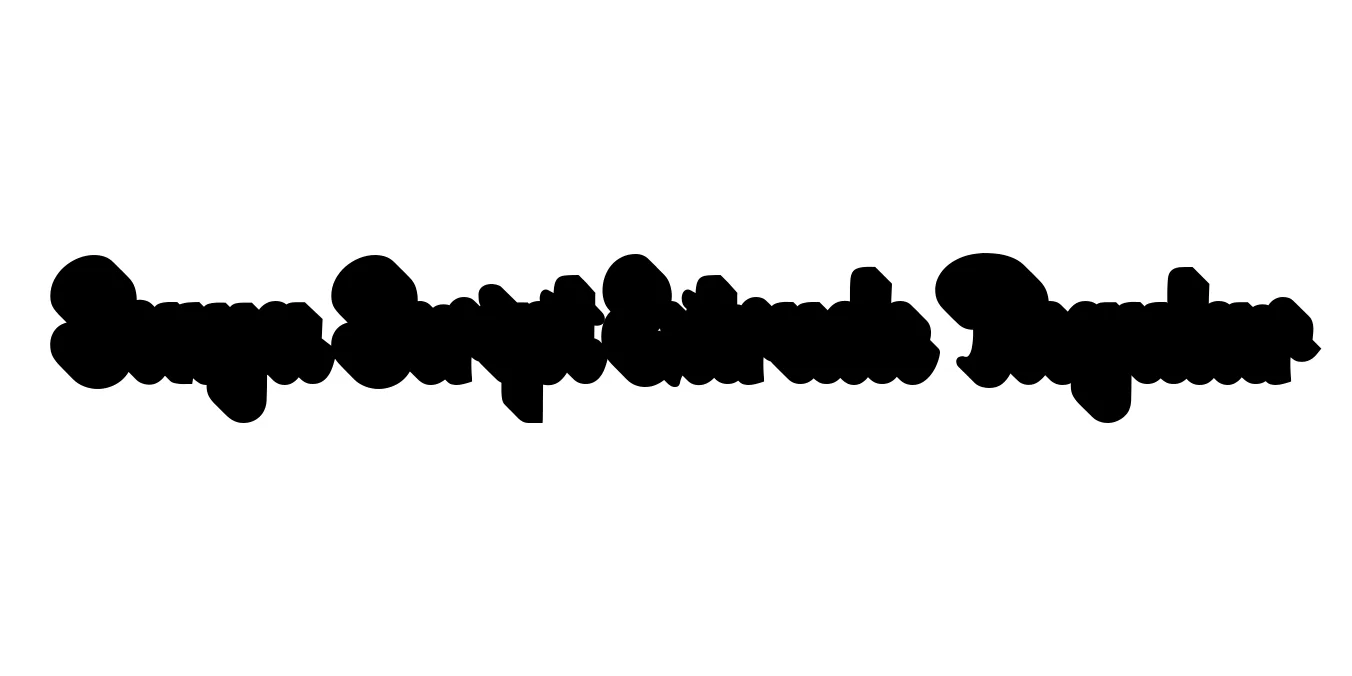
Sonya Script Extrude Regular
Designed by Selly Kurniawati
| Category | Display Script |
| Designer | Selly Kurniawati |
| Similar Fonts | Billion Dreams, Billabong, Lobster |
Sonya Script Extrude Regular is a beautifully crafted display font that combines the elegance of modern calligraphy with a bold, three-dimensional extruded effect. This typeface is designed to stand out, featuring fluid, hand-drawn strokes and a shadow-like depth that gives it a professional, finished look without the need for additional graphic design software effects.
The font is particularly effective for visual branding and creative advertising where a touch of sophistication and depth is required. Its versatile nature allows it to bridge the gap between classic retro aesthetics and contemporary digital design, making it a favorite for designers working on logos, large-scale signage, and impactful social media layouts.
Sonya Script Extrude Regular Best Uses
Creating unique and memorable wordmarks for lifestyle brands.
Designing high-engagement Instagram quotes and Pinterest graphics.
Perfect for t-shirt prints and custom merchandise that needs a 3D feel.
Ideal for wedding welcome boards and party banners.